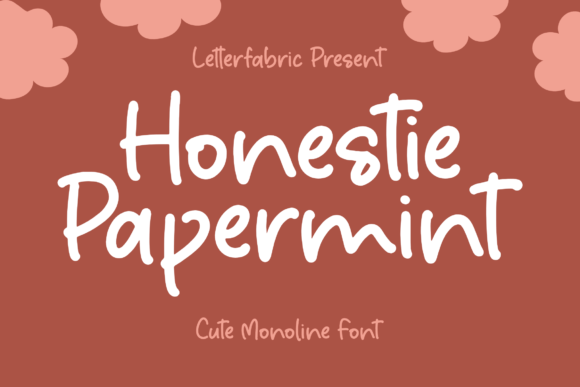
Welcome to the world of Honestie Papermint Font, a delightful monoline handwritten treasure meticulously crafted to bring a touch of whimsy and charm to your digital creations. Step into the world of delicate strokes, playful loops, and undeniable cuteness that defines this script font.
With Honestie Papermint Font by your side, you'll embark on a creative journey filled with endless possibilities. Whether you're a seasoned designer or just starting, this font has the power to transform your ideas into captivating visuals. Unleash your imagination and let the flowing lines of Honestie Papermint Font dance across your screen, creating designs that are both captivating and heartwarming.
Picture this: a heartfelt greeting card adorned with the unique charm of Honestie Papermint Font, carrying your warm wishes to loved ones in a way that feels both personal and enchanting. Or, envision a digital invitation adorned with this whimsical font, enticing your guests with a sense of anticipation and excitement for your upcoming event.
The versatility of Honestie Papermint Font knows no bounds. From playful social media posts to eye-catching branding materials, this font seamlessly adapts to your creative vision. Let the characters of Honestie Papermint Font become the voice of your brand, speaking volumes about your personality and unique style.
So, dive into the world of Honestie Papermint Font and let your creativity soar. Embrace the delightful, the charming, and the utterly captivating. Make this whimsical font your go-to choice for all your design adventures, and watch as your creations come to life with a touch of magic.